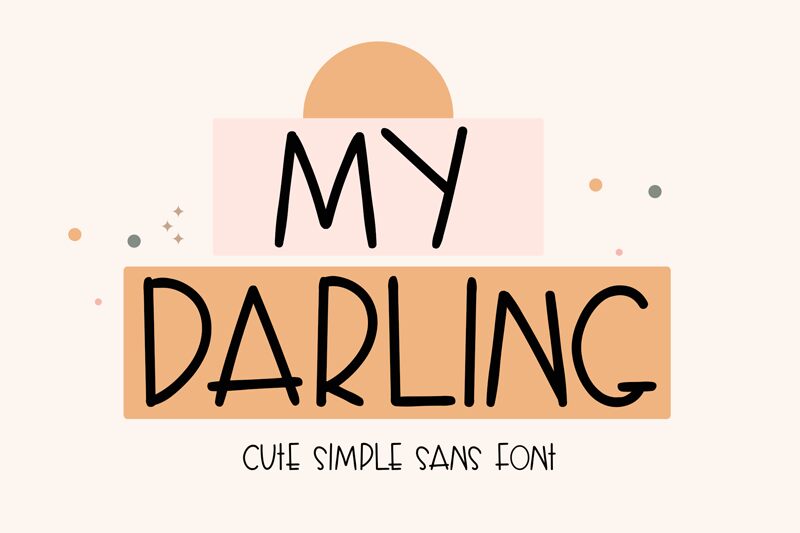
My Darling
My Darling, crafted by Andang Prasetyo, is more than just a font; it's a burst of playful creativity with a touch of whimsy. As a semi-light, comic-style display font, My Darling embodies an aesthetic that is both approachable and delightfully expressive. The handwritten quality exudes warmth, making it ideal for projects aimed at younger audiences or designs that call for a personal, handcrafted feel.
The organic flow of the letterforms in My Darling lends itself beautifully to children's designs where charm and readability are key. Imagine this font coming to life on classroom posters, educational apps, or invitations to whimsical birthday parties – its friendly appearance would surely capture hearts and engage imaginations.
For those seeking to inject authenticity into their work, My Darling's genuine handwritten style adds the perfect touch of reality to chalkboard quotes or teaching materials. Its casual yet legible appearance ensures clear communication combined with an endearing personal flair.
With its versatility and aesthetically appealing characteristics rooted in the playful and comic style genre, My Darling stands out as an excellent choice for designers looking to add a sense of joy and personality to their creative endeavors.